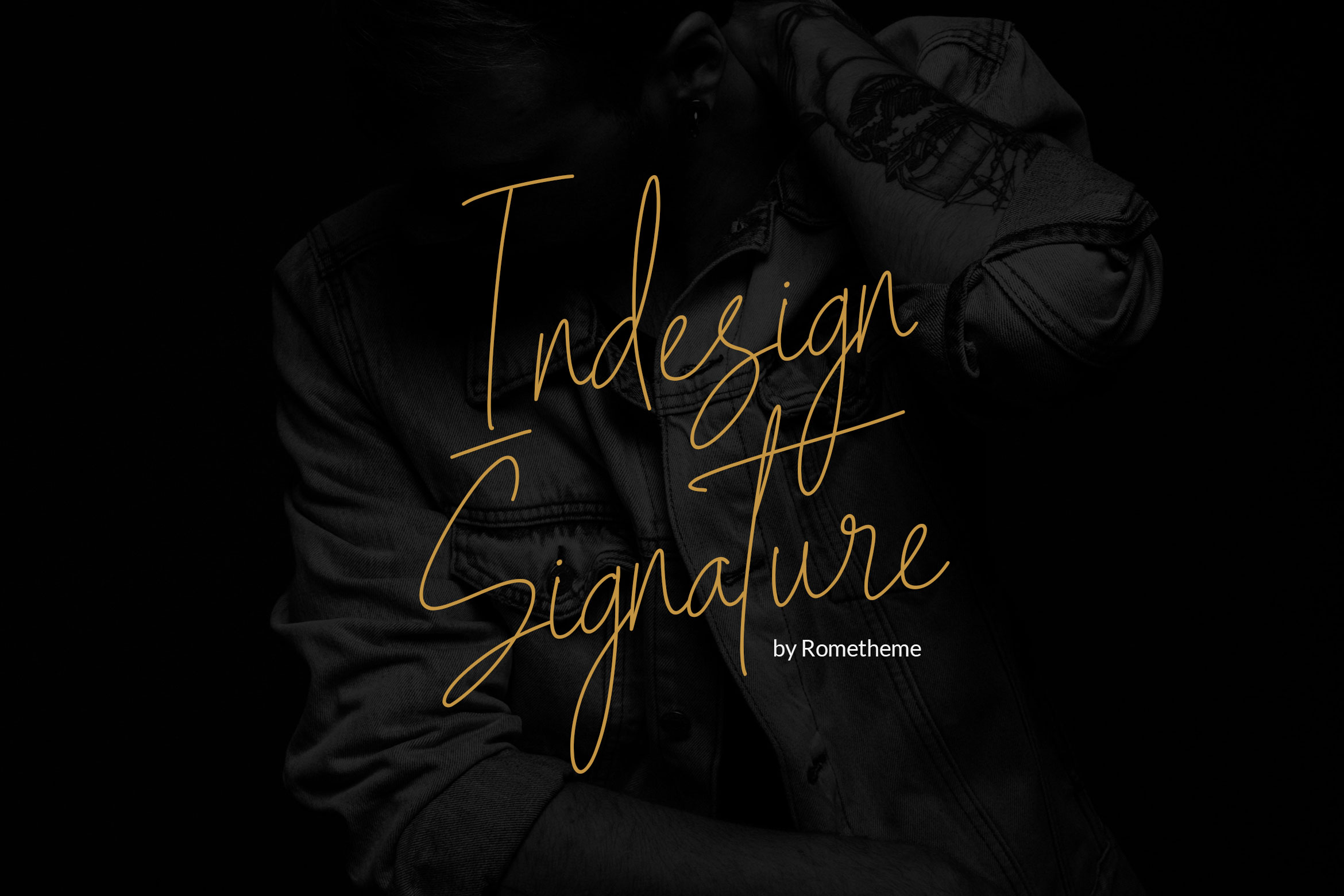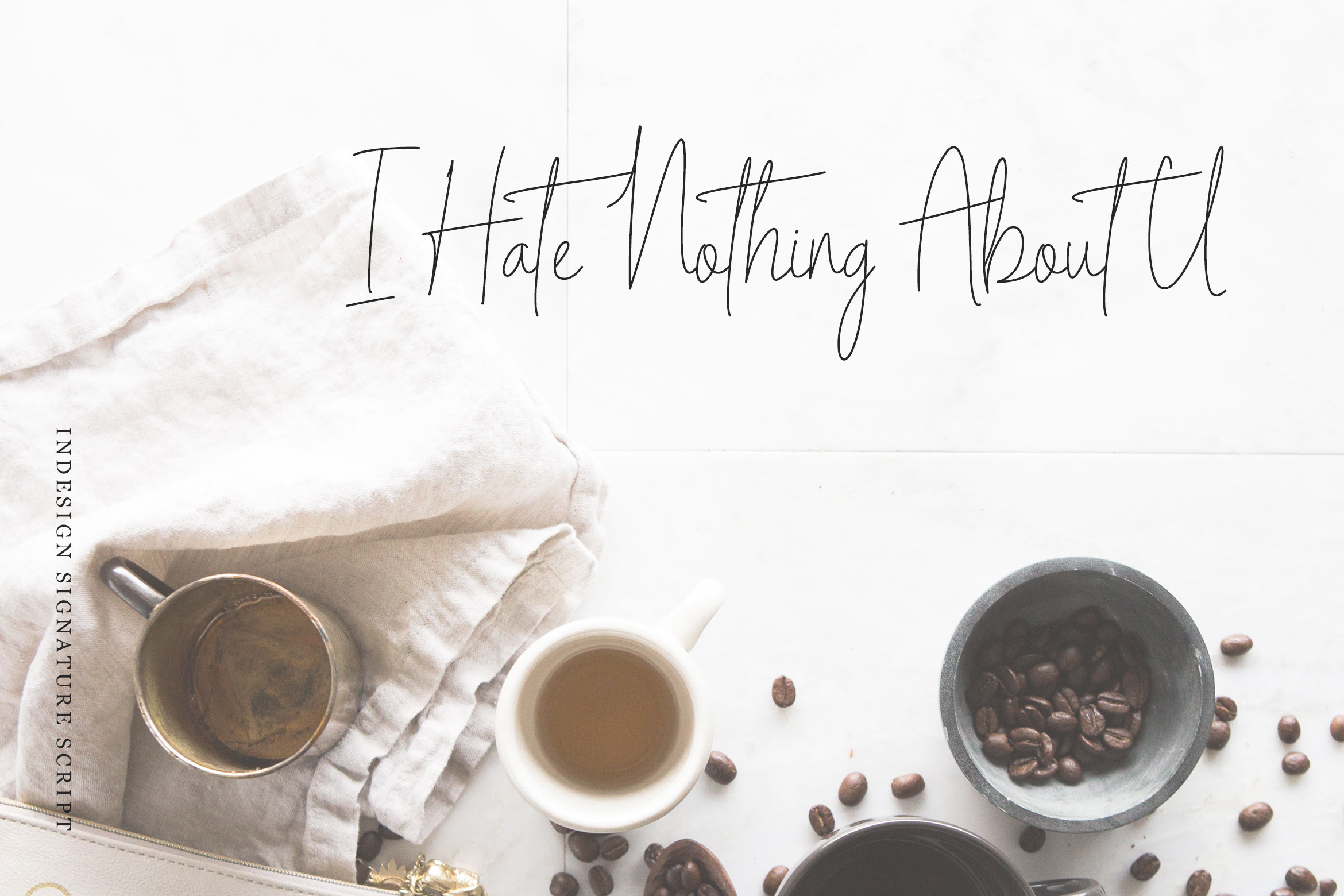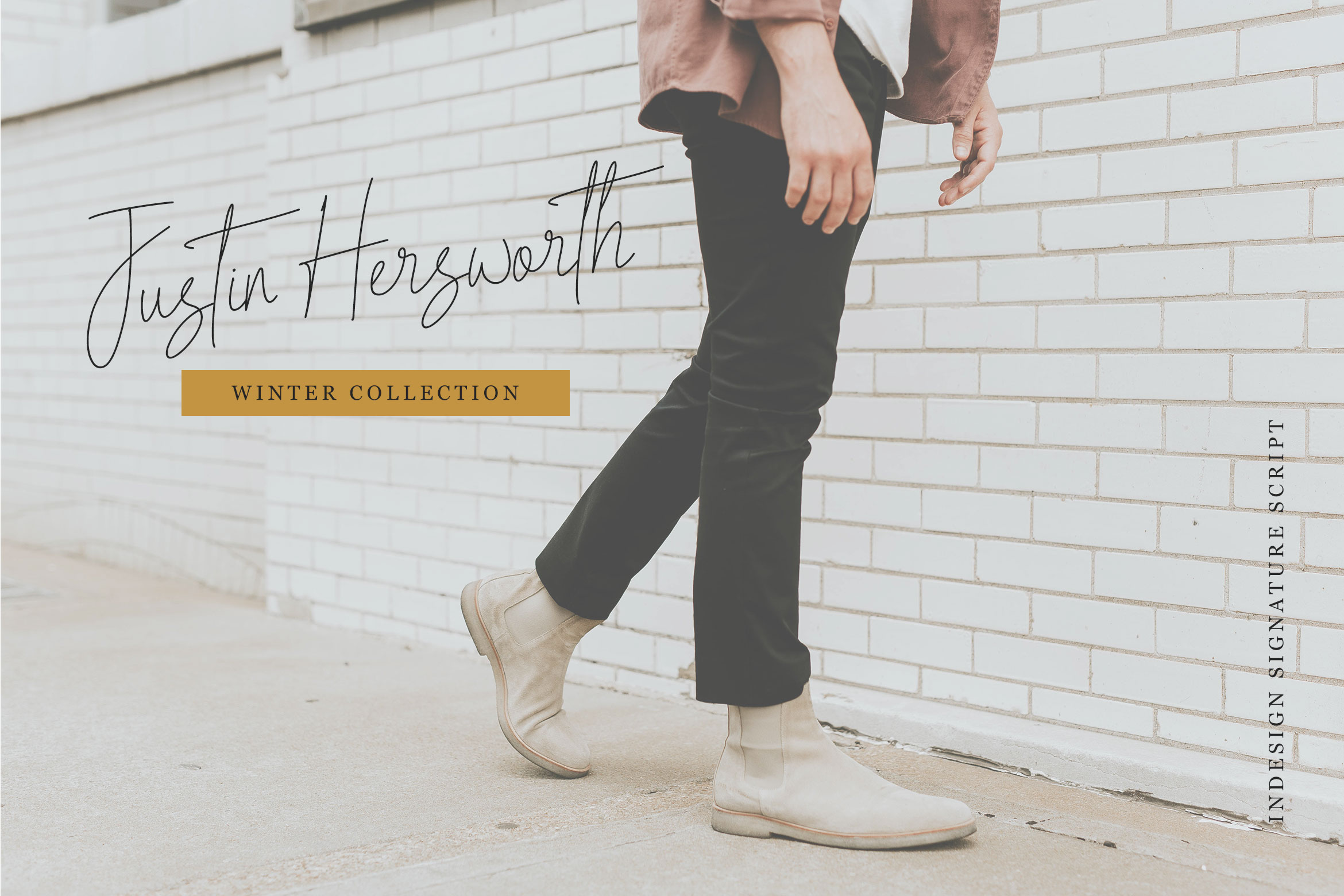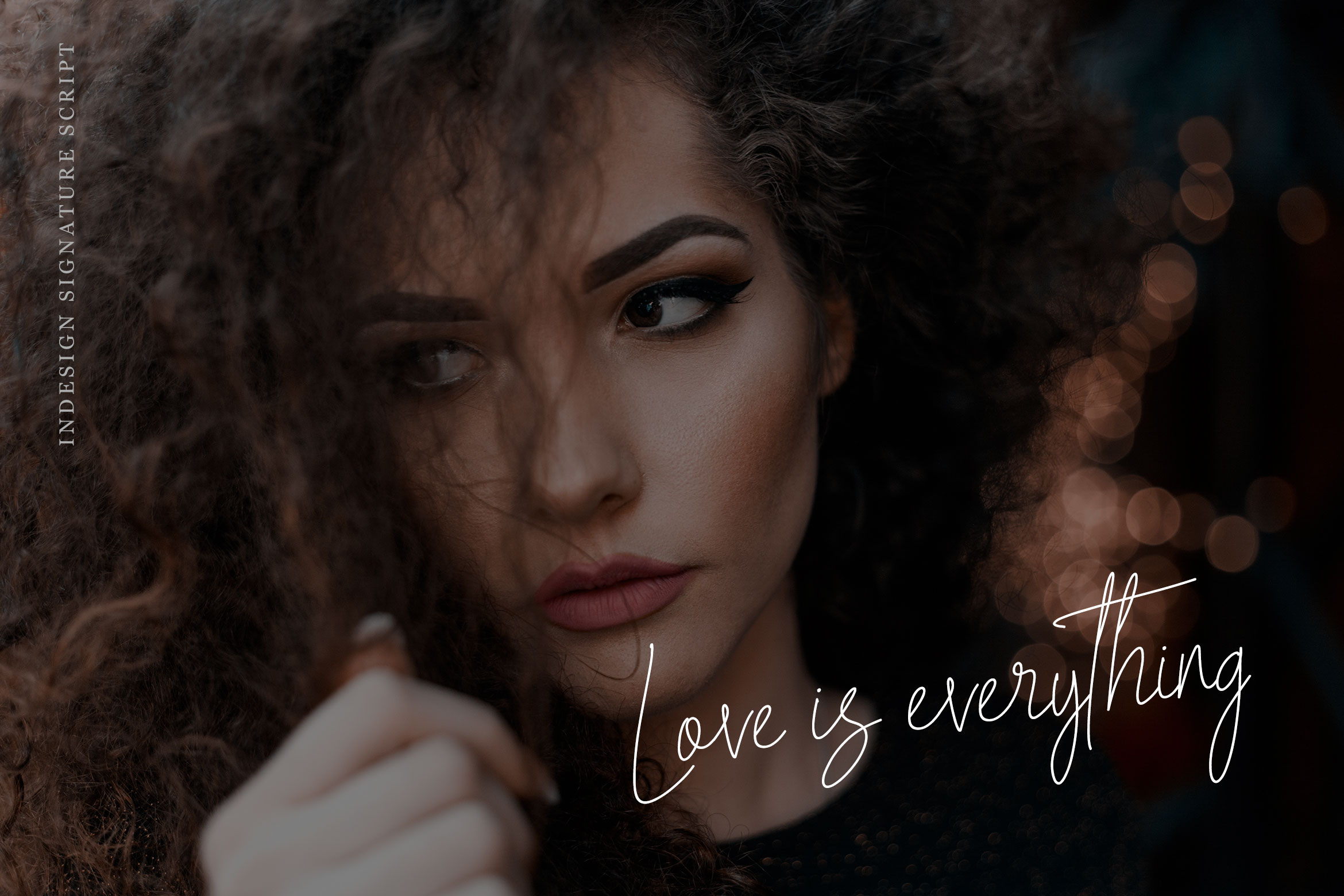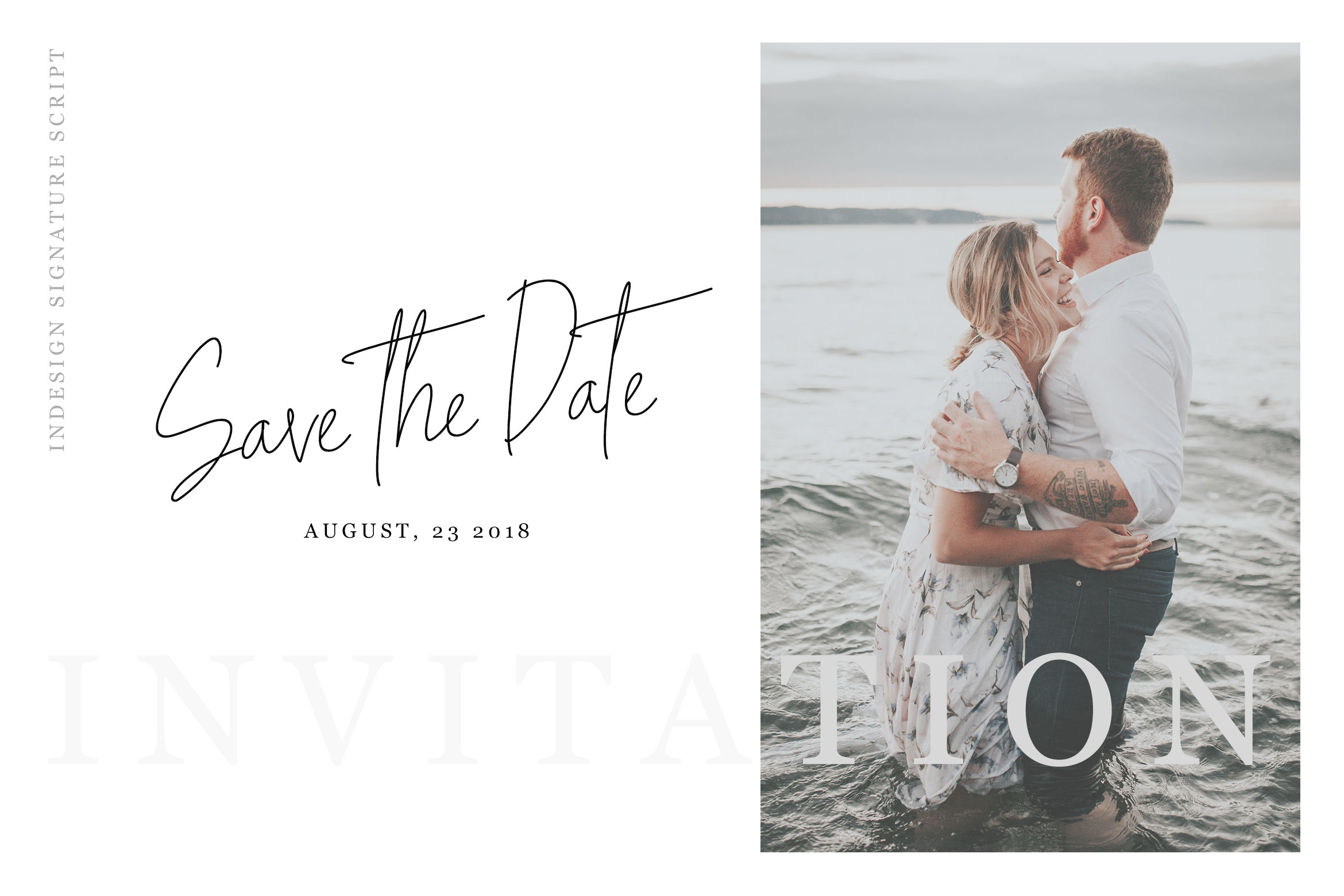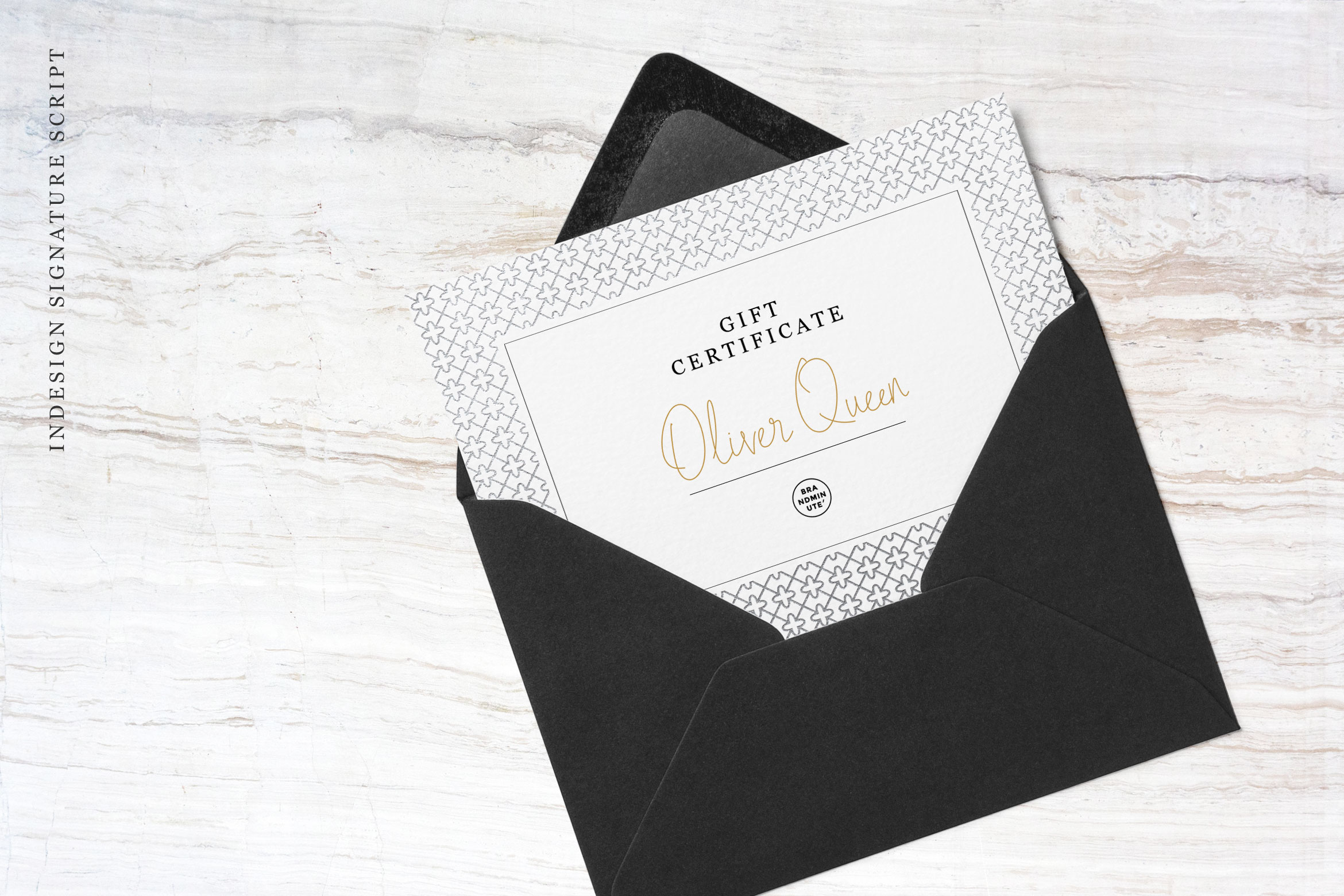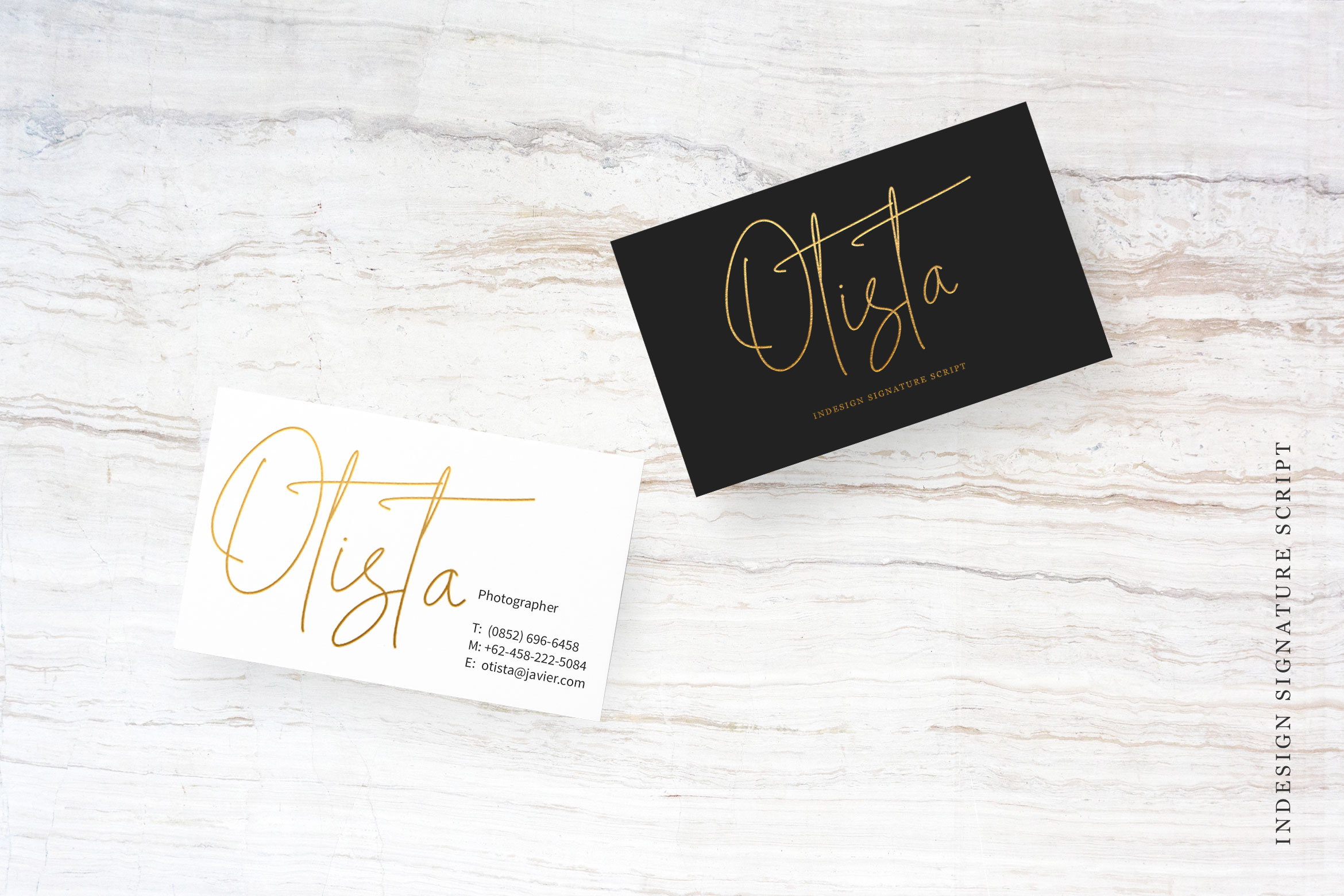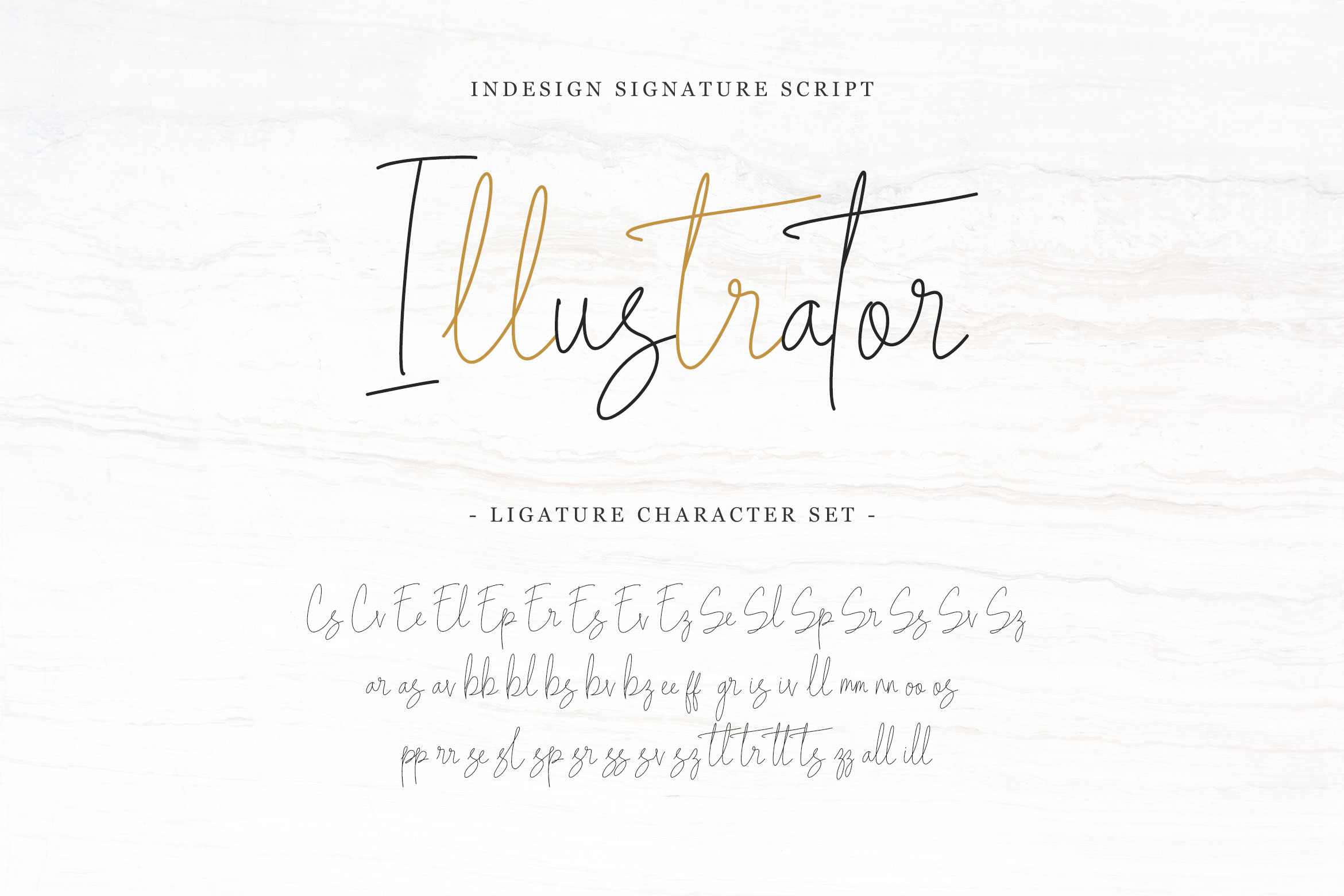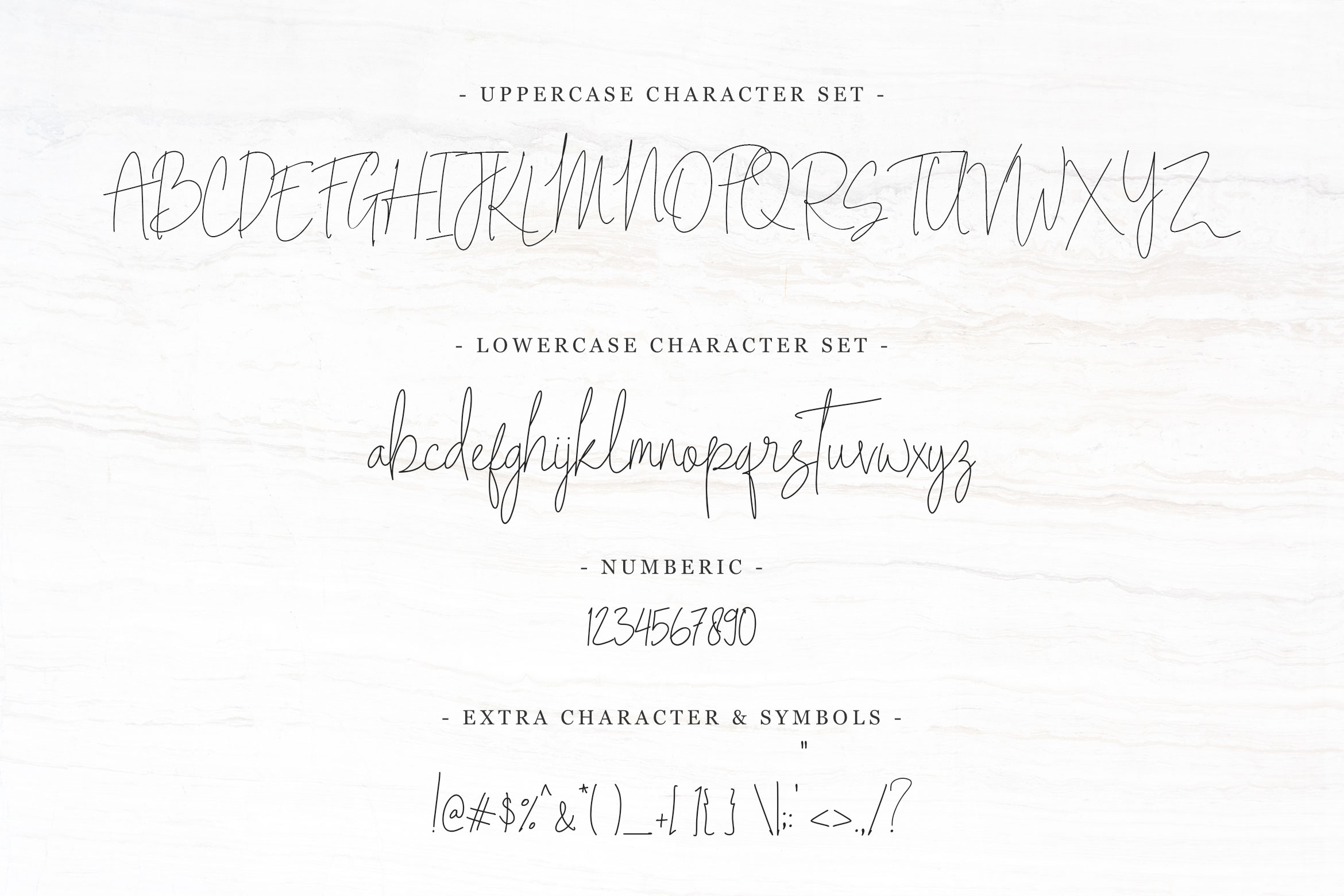
Indesign Signature Font
About Indesign Signature Font
Indesign Signature is a beautiful and modern handwritten script font. This elegant and beautiful font is stylish and versatile so you can use in a plethora of designs in both digital and print applications.